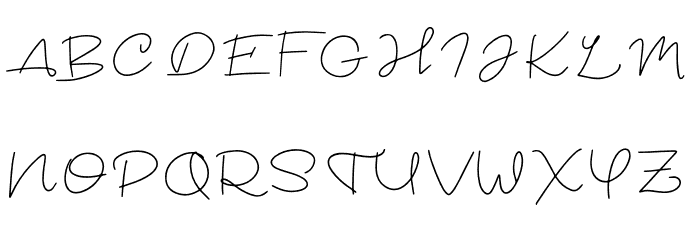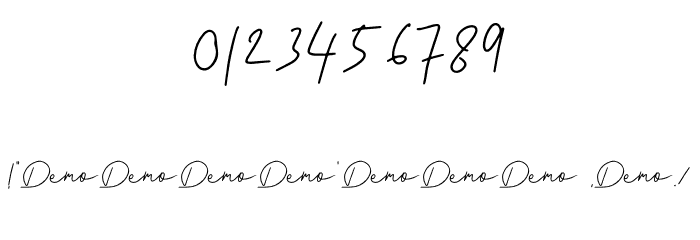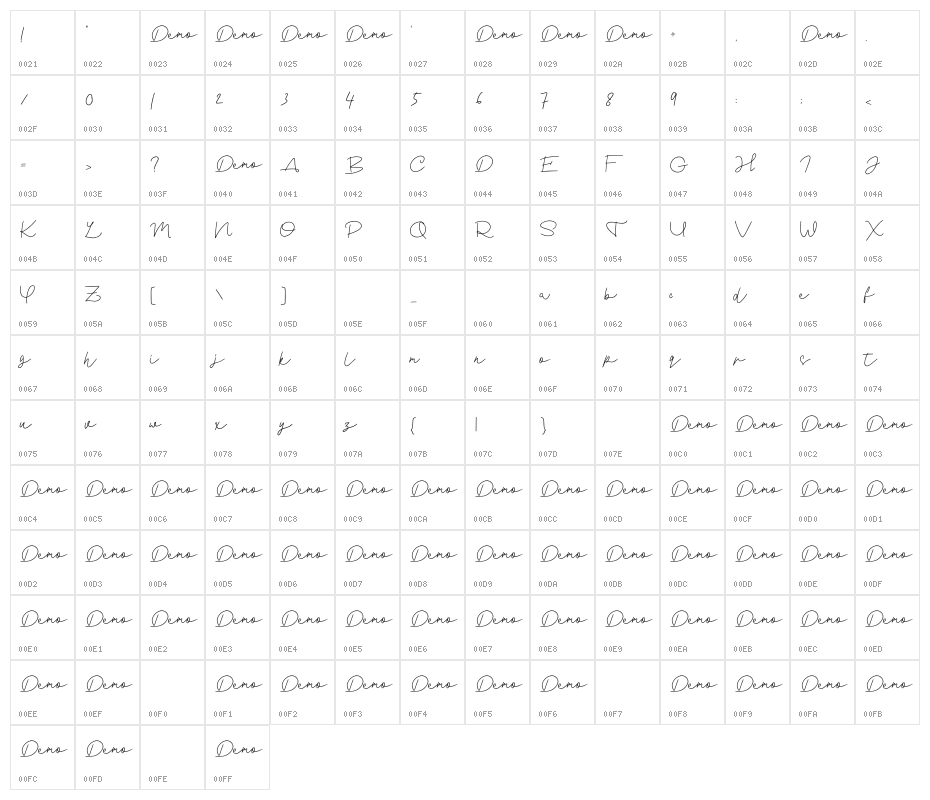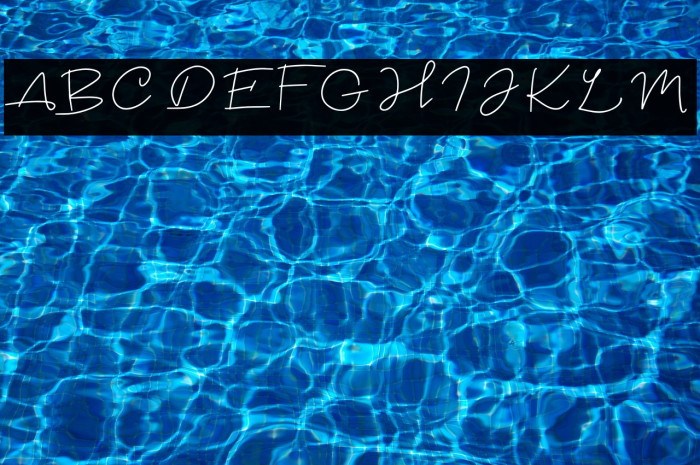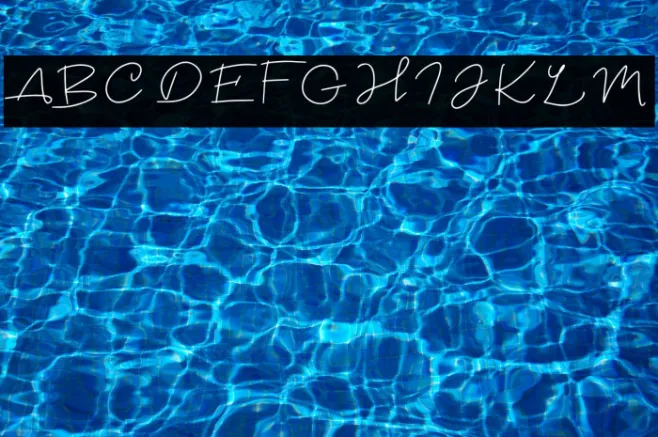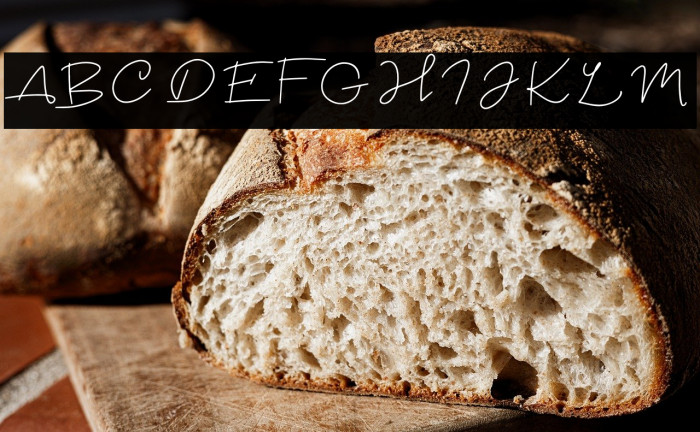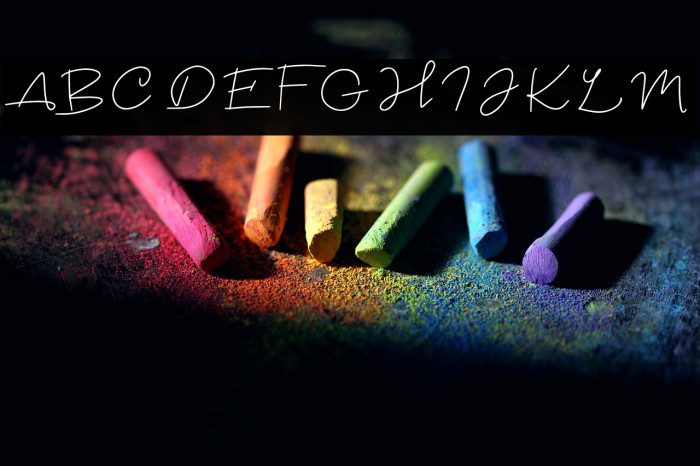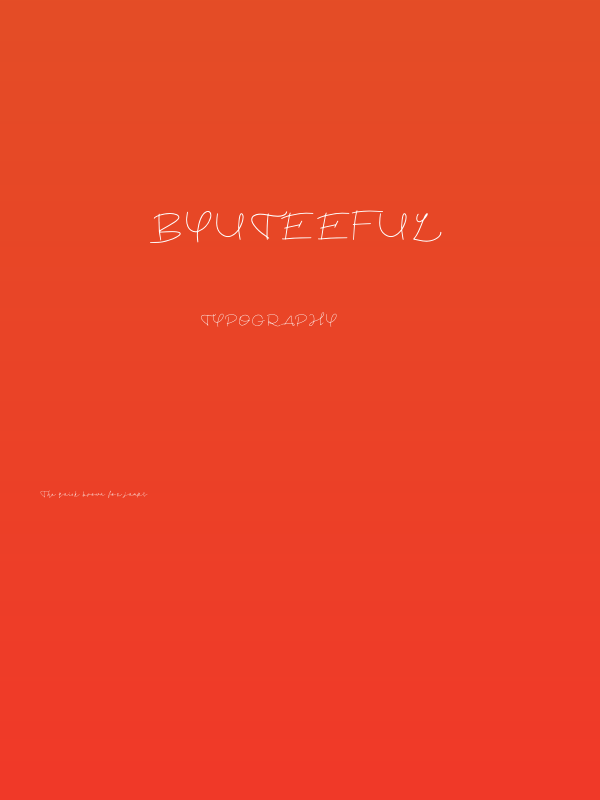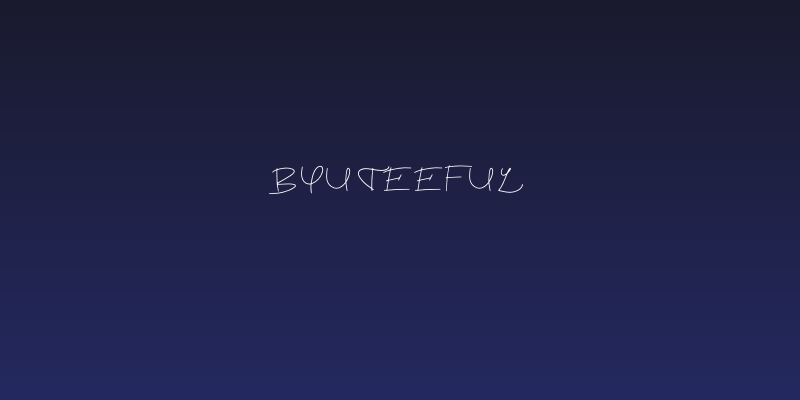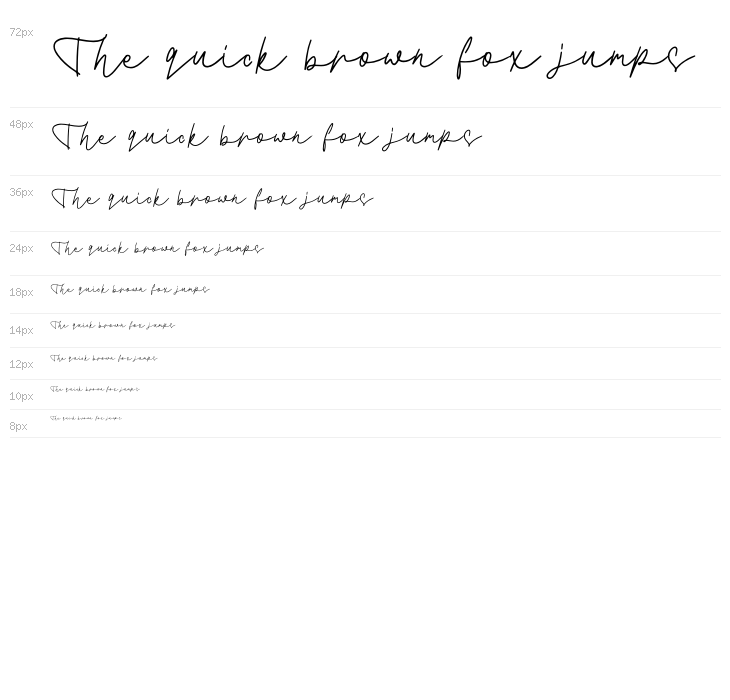
Byuteeful Font
A flowing, handwritten script font with a casual and elegant style, featuring smooth curves and a natural, personal touch.
Casual handwritten script font.
- Font: Byuteeful
- Proposed Projects: Invitations, greeting cards, personal branding.
- Category: Handwritten
- Overall Style: Casual, Elegant
- Use Case: Logos, Invitations, Personal notes